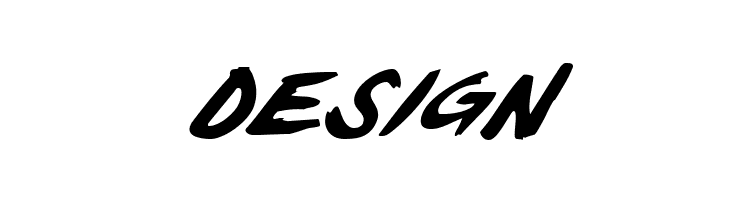
Master Breaker Super-Italic Font
- Font: Master Breaker Super-Italic
A bold, brush-style font with dynamic and expressive strokes.
( Fonts by Furdzville - Brian Powers )